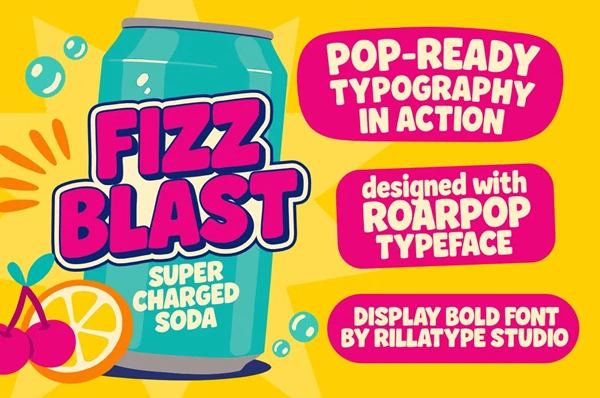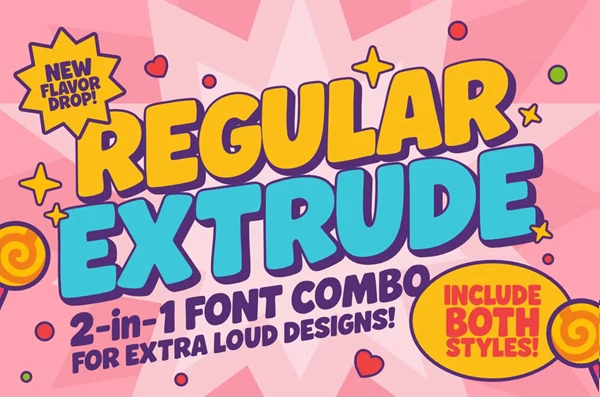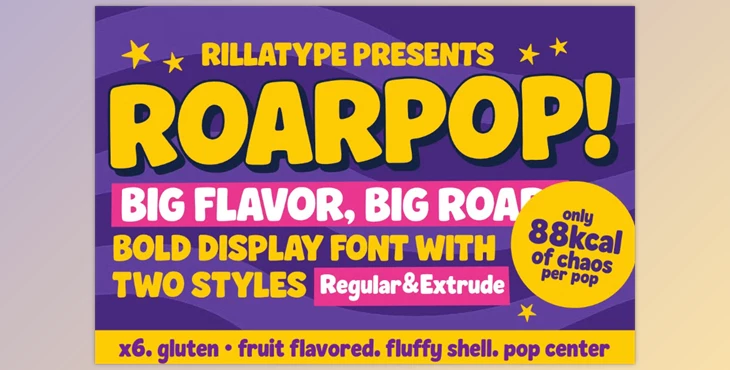
Roarpop - Fun Bold Font:
Roarpop is a loud and fun display font for kids inspired by the visuals of childhood and snack packaging. The font has clean lines and lively shapes, making it perfect to bring a playful yet confident vibe to every design work. Roarpop is especially suited for digital content, posters, kids’ products, and food branding as it provides an adventurous feel to typography.
- Two distinct styles: Regular and Extrude . Each can be separately or layered together for dynamic patterns.
- Character set: Uppercase or lowercase letters, numbers, punctuation, and additional symbols all included.
- Use versatility: Suitable for food brand projects, children’s merchandise, posters, and social media graphics.
- Design style: Cheerful and celebratory. Bold, friendly, messaged, and eye-popping at the same time.